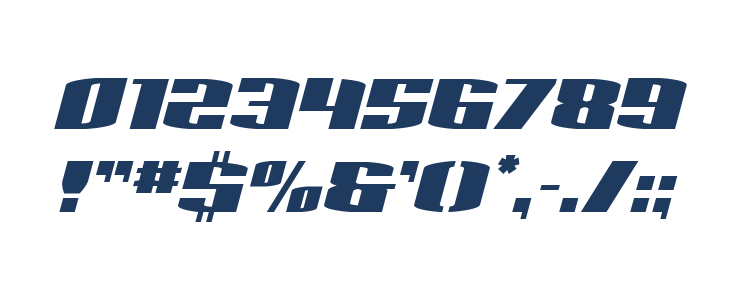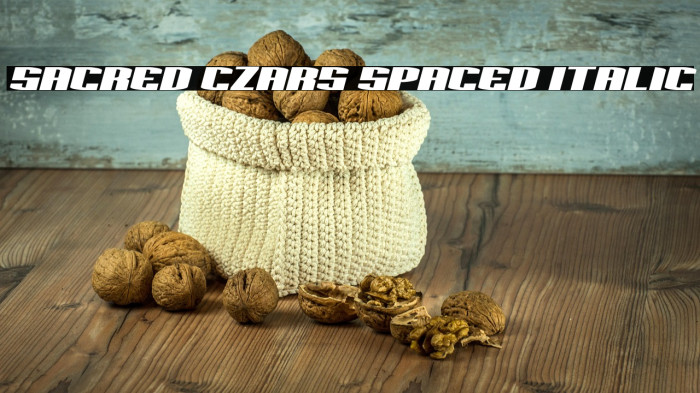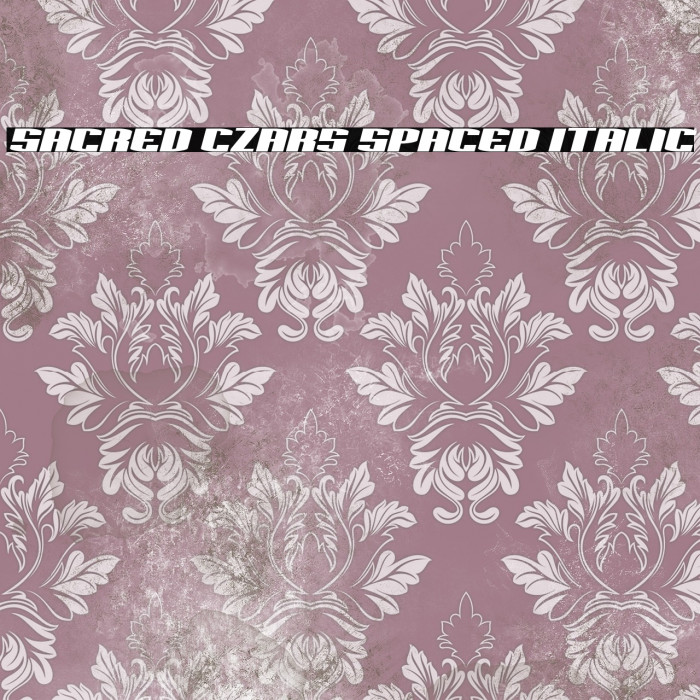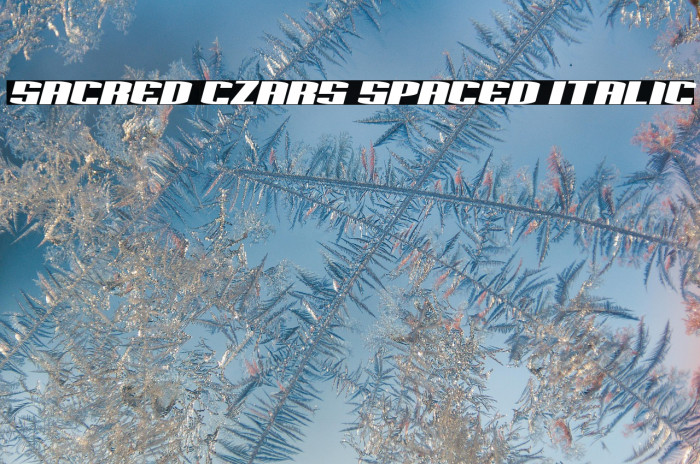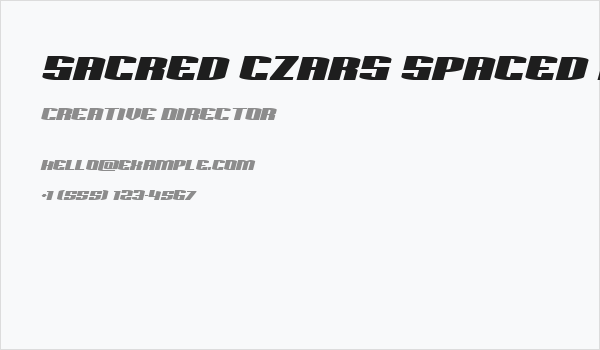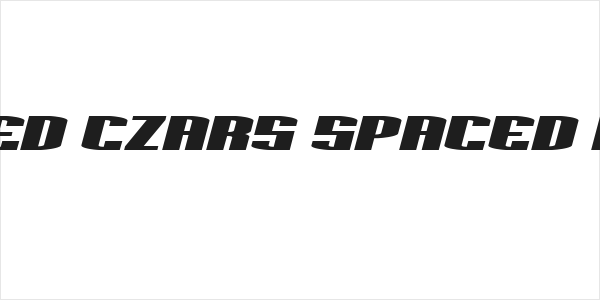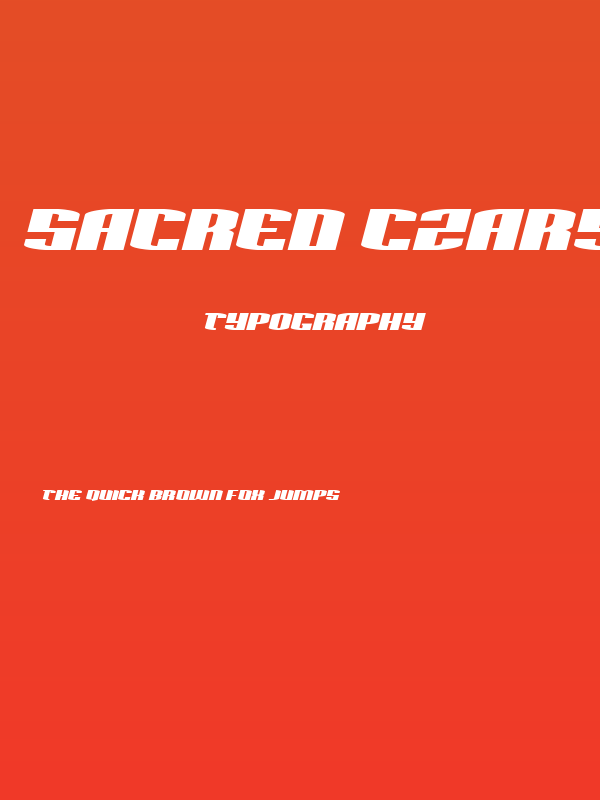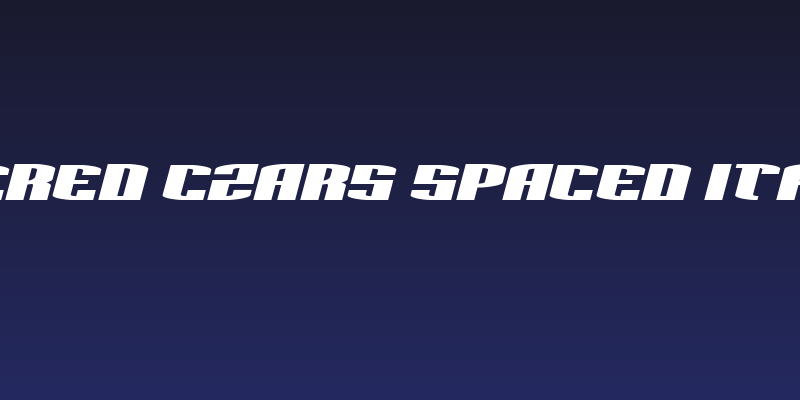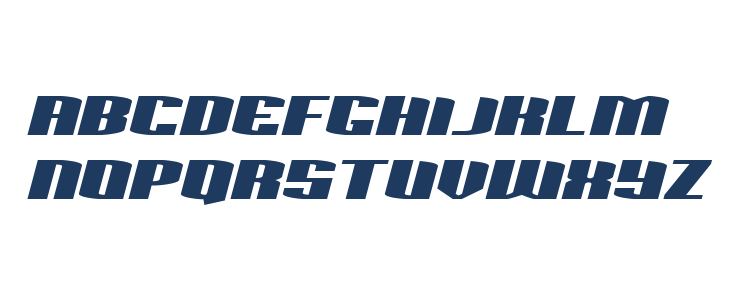
Sacred Czars Spaced Italic Font
Sacred Czars Spaced Italic Description
This font features a bold and dynamic style with a distinctly italicized slant, giving it a sense of motion and energy. The characters are wide and spaced evenly, with sharp, angular edges that create a modern and aggressive appearance. The uppercase letters are particularly striking, with a strong presence that commands attention. The numerals and special characters maintain the same boldness and angularity, ensuring consistency across all glyphs. This font is ideal for projects that require a strong visual impact and a contemporary feel.
| Proposed Projects | Ideal for sports branding, action movie posters, dynamic logos, and modern advertising campaigns. |